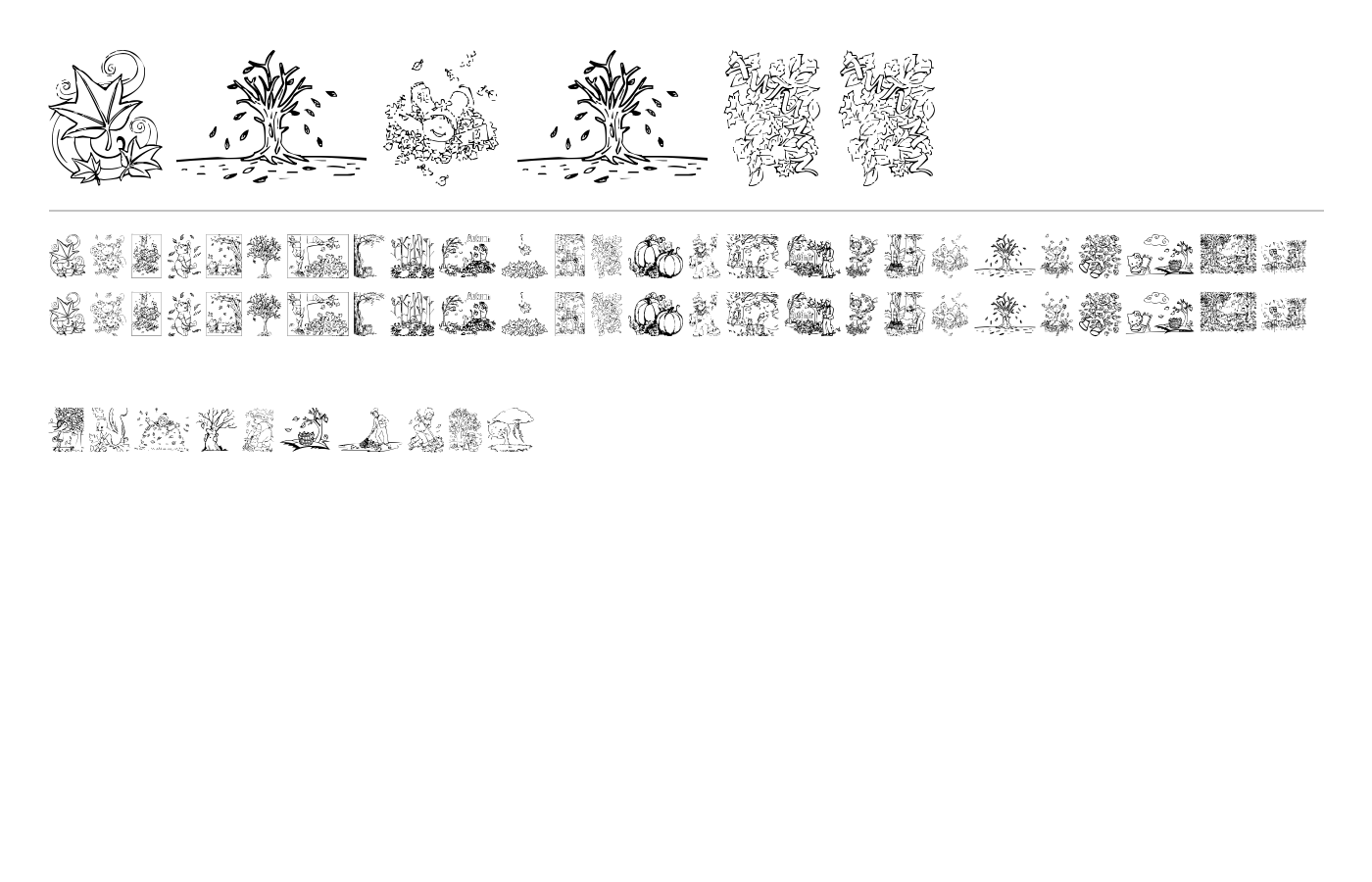
Autumm Font is a decorative, hand-drawn typeface full of whimsical autumn-themed illustrations rather than traditional letterforms. Its playful, detailed design evokes a cozy, seasonal mood perfect for creating unique logos, invitations, or packaging that celebrate fall and nature. This font works best in creative, artistic projects where a fun and festive feel is desired rather than in body text or formal settings.
Autumm Font
About Autumm Font